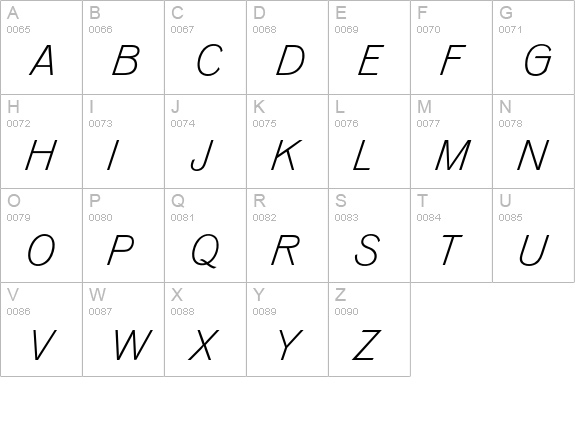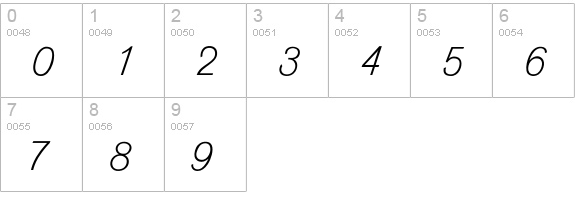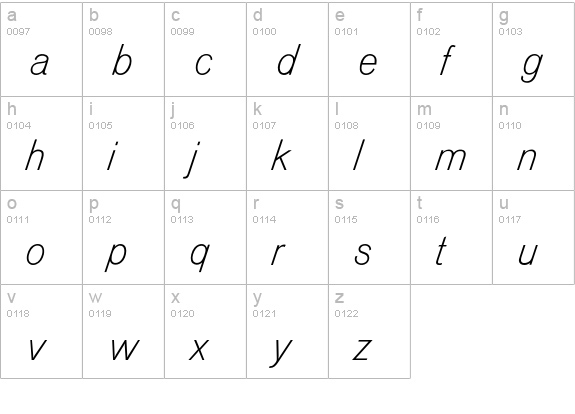
Aurora Font Details
Introducing Aurora font - a stunning and elegant typeface that exudes sophistication and charm. With its sleek lines and graceful curves, Aurora font is perfect for adding a touch of class to your projects. Whether you're designing invitations, branding materials, or any other creative work, Aurora font is sure to make a lasting impression. The best part? Aurora font is completely free to download! You can get your hands on this beautiful typeface at FontsMarket.com. Don't miss out on the opportunity to elevate your designs with Aurora font - download it today and let your creativity shine!